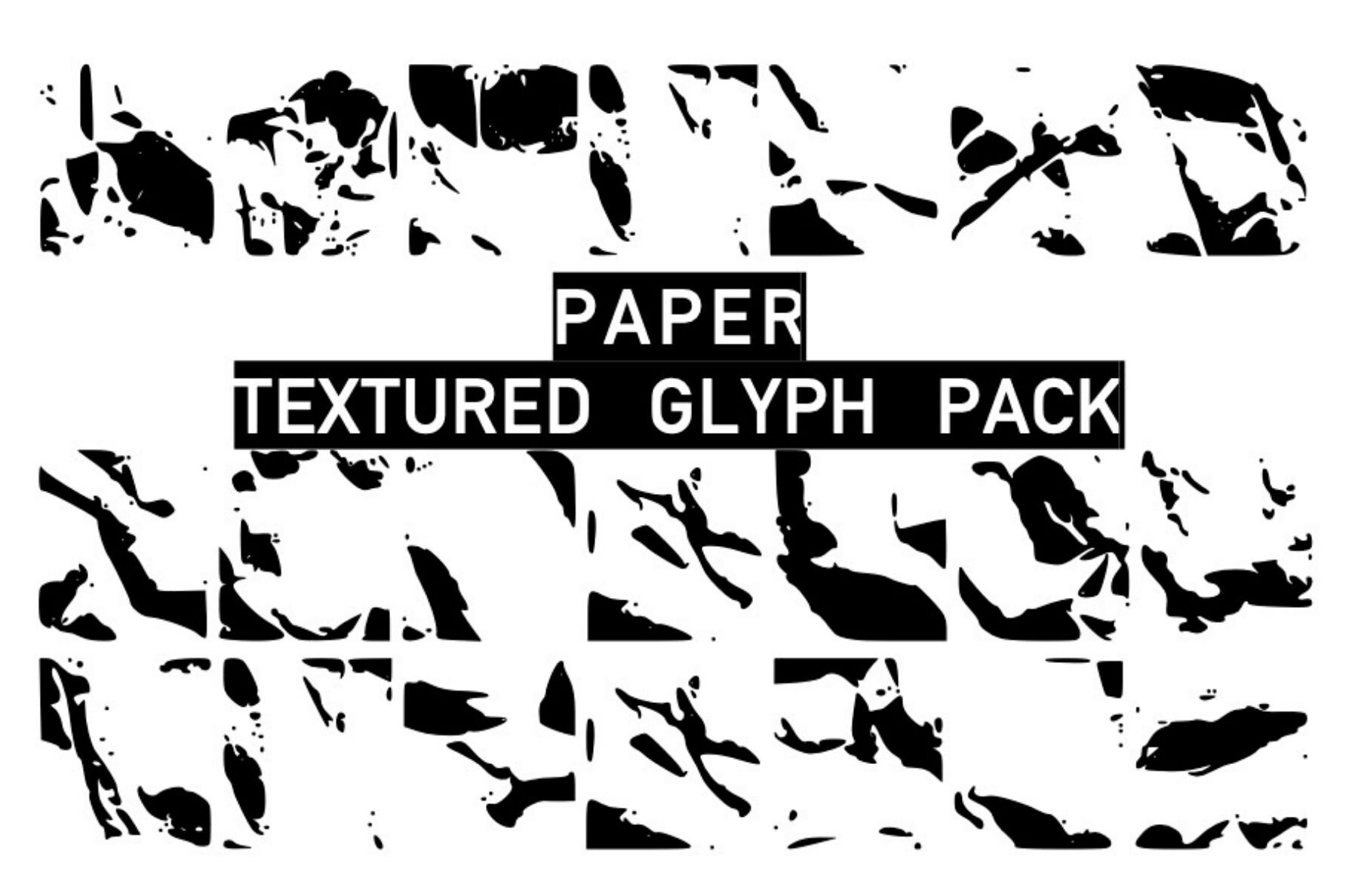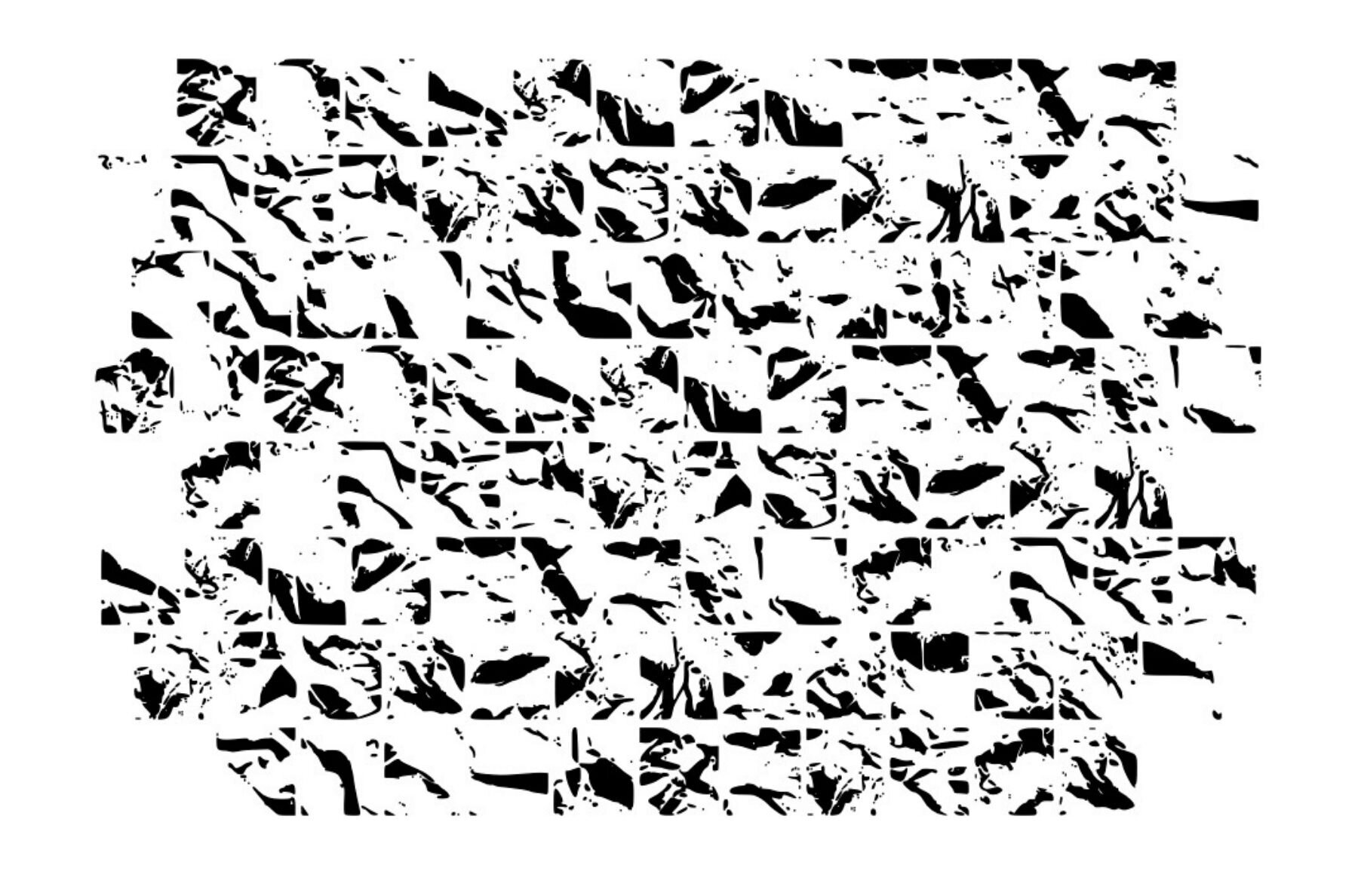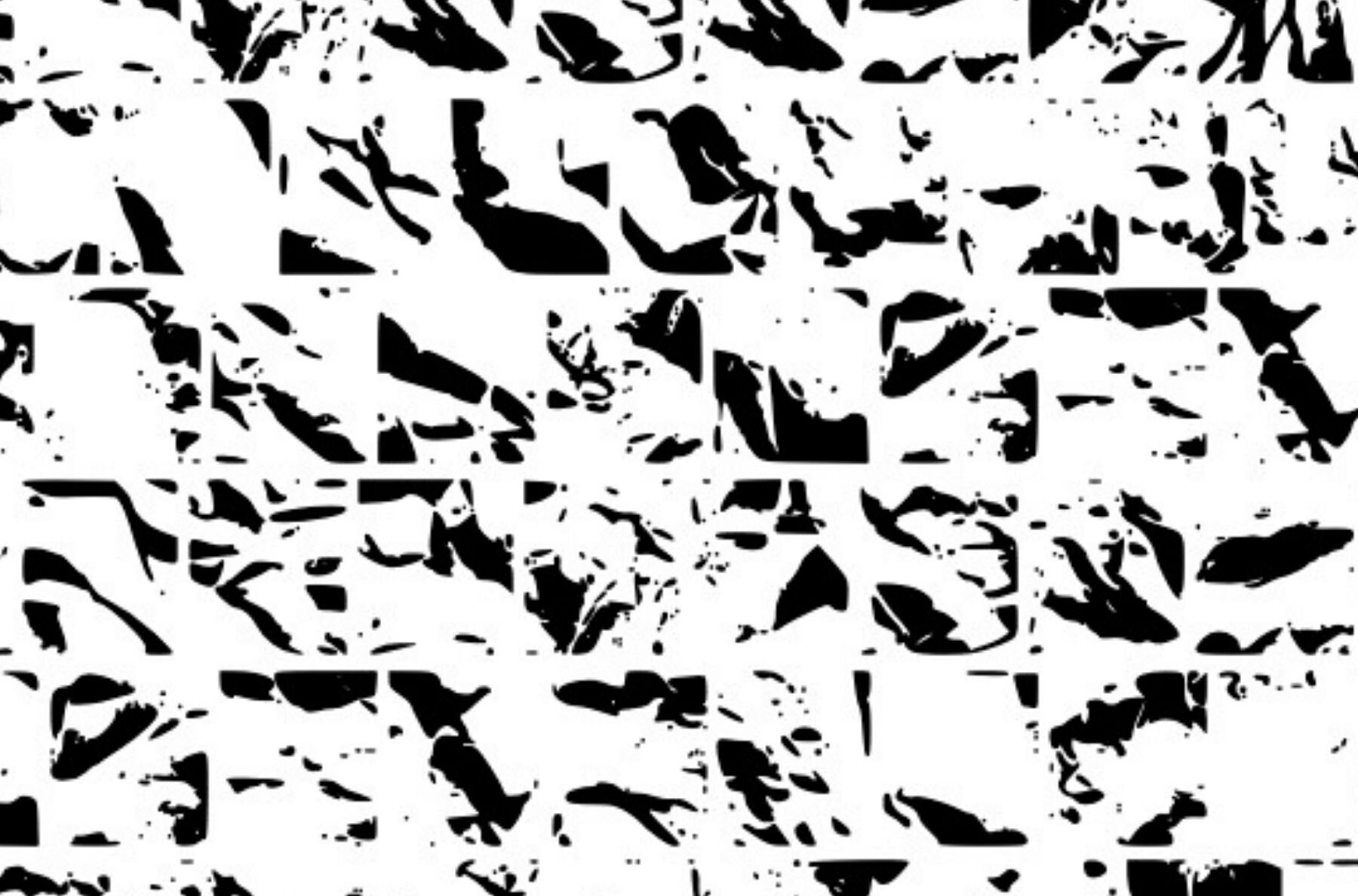
Texture Paper Font
Texture Glyph Paper
Elevate your design projects with Texture Paper, an extensive pack of paper-textured glyphs. Ideal for adding a tactile dimension to any creative endeavor, this collection is perfect for designers and craft enthusiasts alike. Whether you're working on digital designs or hands-on projects, these textures effortlessly provide the depth and detail needed to bring your vision to life.Texture Paper by Graphics Bam